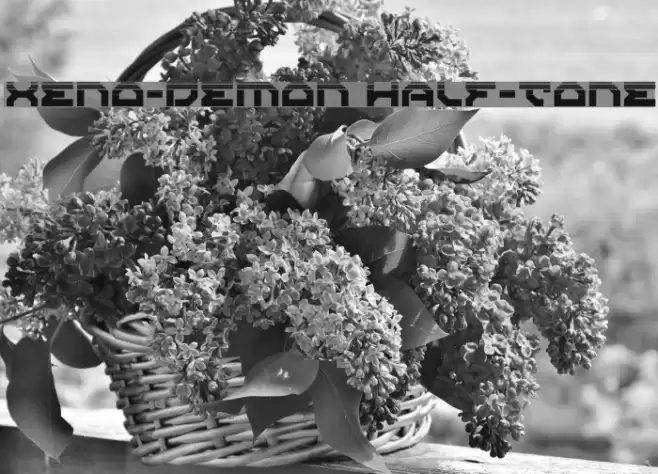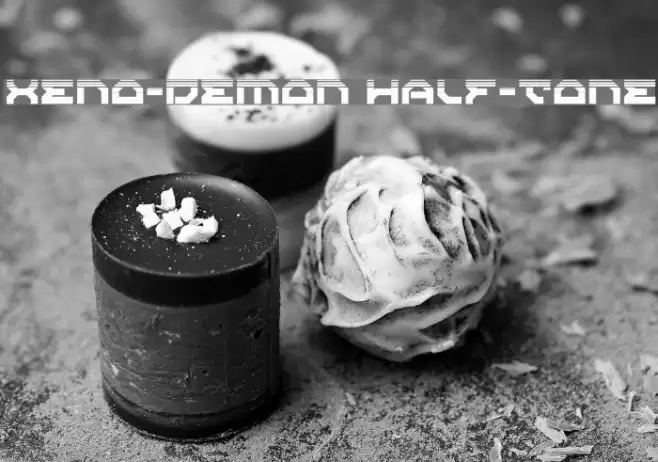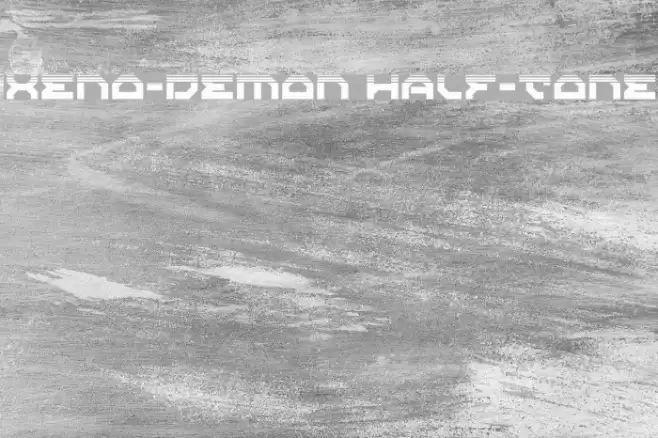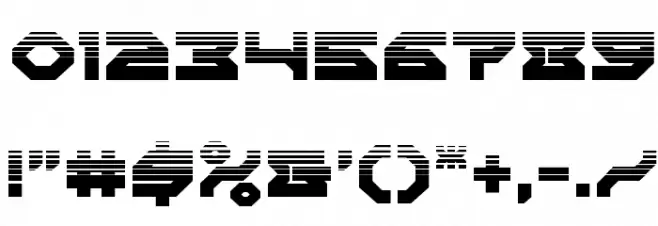
Xeno-Demon Half-Tone Font
Xeno-Demon Half-Tone Description
This font features a bold, futuristic design with a distinctive half-tone effect. The characters are constructed with horizontal lines that create a sense of movement and depth, giving it a dynamic and edgy appearance. The uppercase and lowercase letters maintain a consistent style, with sharp angles and geometric shapes that enhance its modern aesthetic. The numerals and special characters follow the same design principles, ensuring uniformity across the typeface. This font is ideal for projects that require a strong visual impact and a contemporary feel.
A bold, futuristic font with a dynamic half-tone effect and geometric design from Sci-fi fonts.
- Proposed Projects: Ideal for sci-fi themed designs, video game graphics, tech branding, and modern posters.